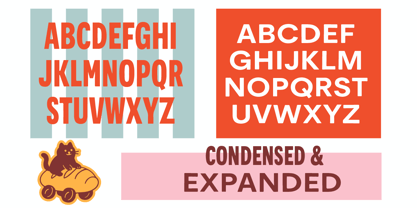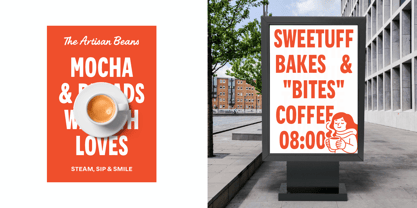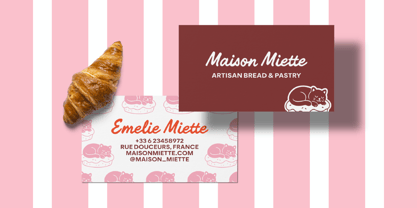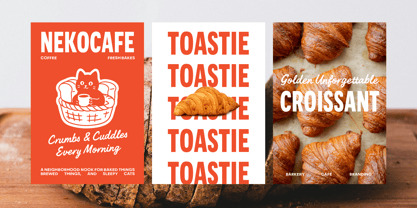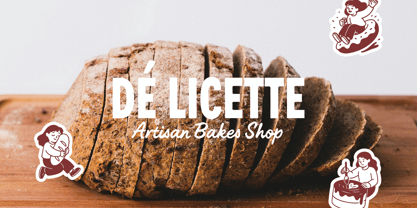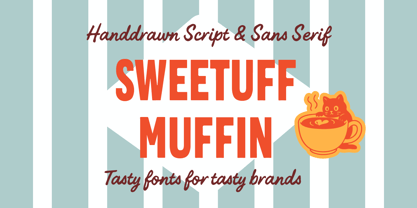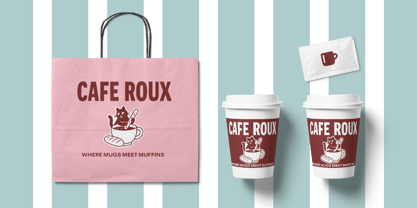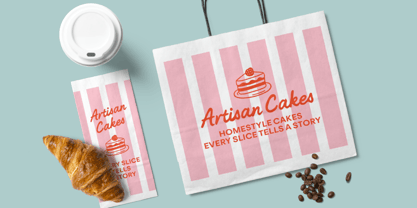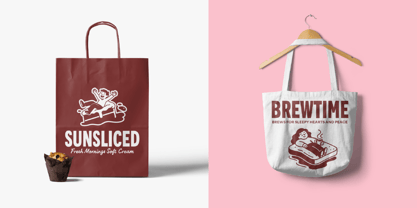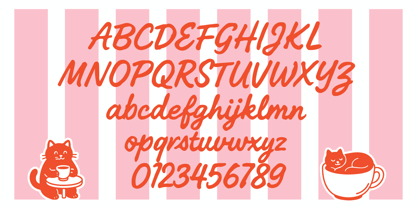
Sweetuff Muffin
by Edignwn Type
The Sweetuff Muffin Font Family was designed by Edi Gunawan and published by Edignwn Type. Sweetuff Muffin contains 3 styles and family package options.
Sweetuff Muffin is a warm and whimsical font duo crafted for cozy brands, handmade packaging, and delicious design. With a playful script and two clean sans styles (Condensed & Expanded), this font family brings charm and clarity to every layout — from coffee cups and cake boxes to logo designs and storefronts.
Each style is carefully hand-drawn to pair effortlessly, giving you flexibility in both casual and professional projects. Whether you're branding a café, designing a bakery label, or creating cheerful merch, Sweetuff Muffin adds a soft, tasty touch to your type.
Sweetuff Muffin includes:
- 3 fonts (handwritten script, sans condensed and sans expanded)
- Uppercase, lowercase, numeral, symbol, punctuation, alternate and ligature in script font
- All-caps, numeral, symbol and punctuation in sans serif font
- Multilingual support